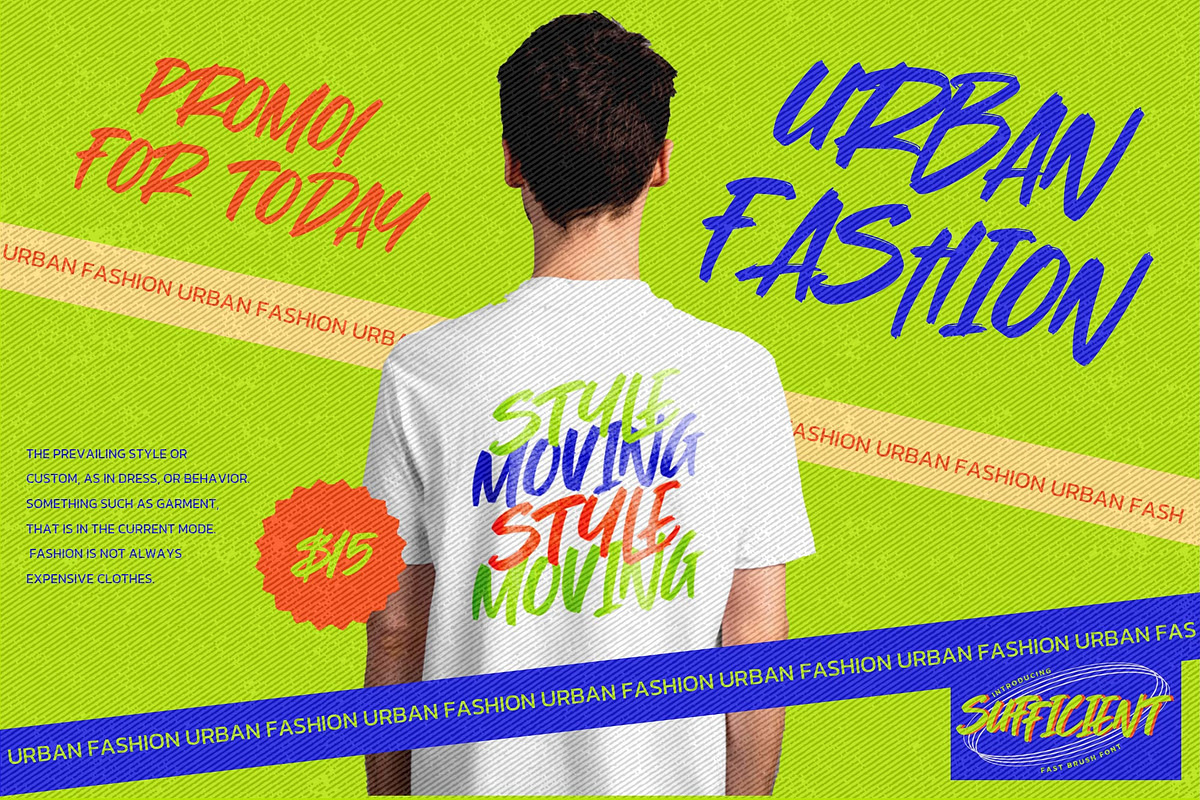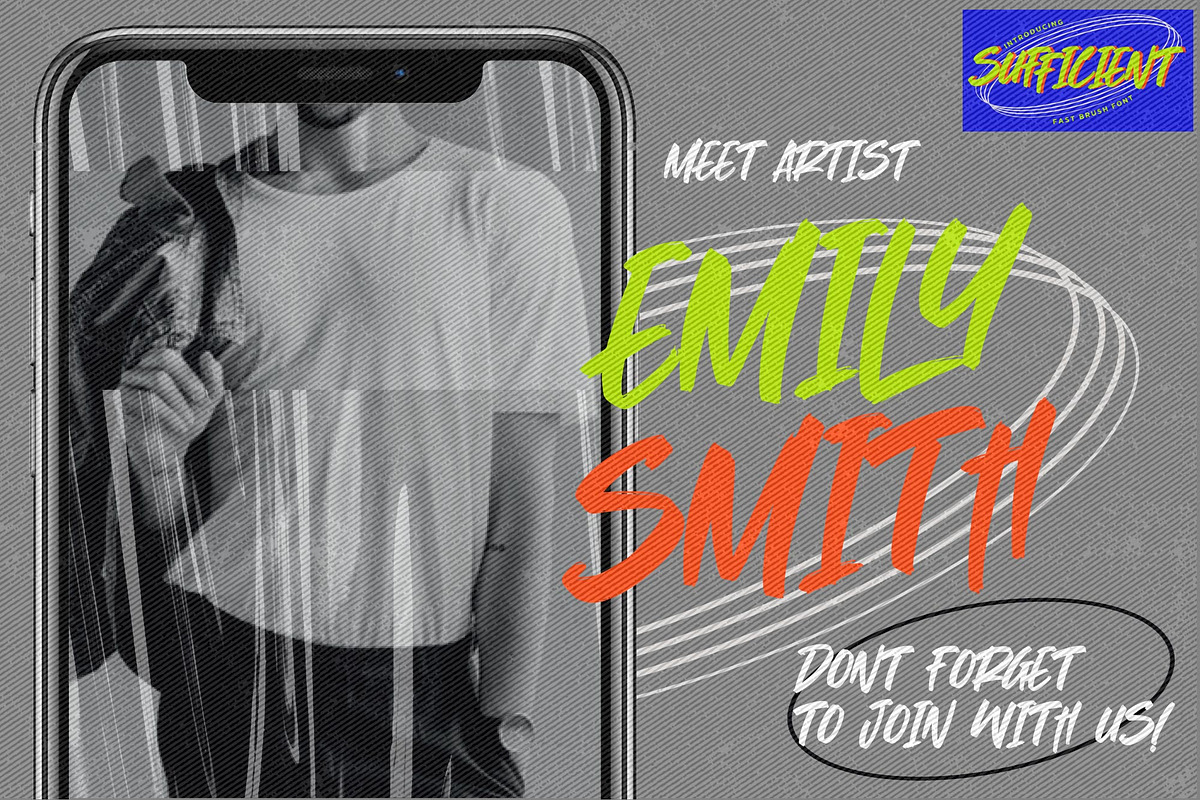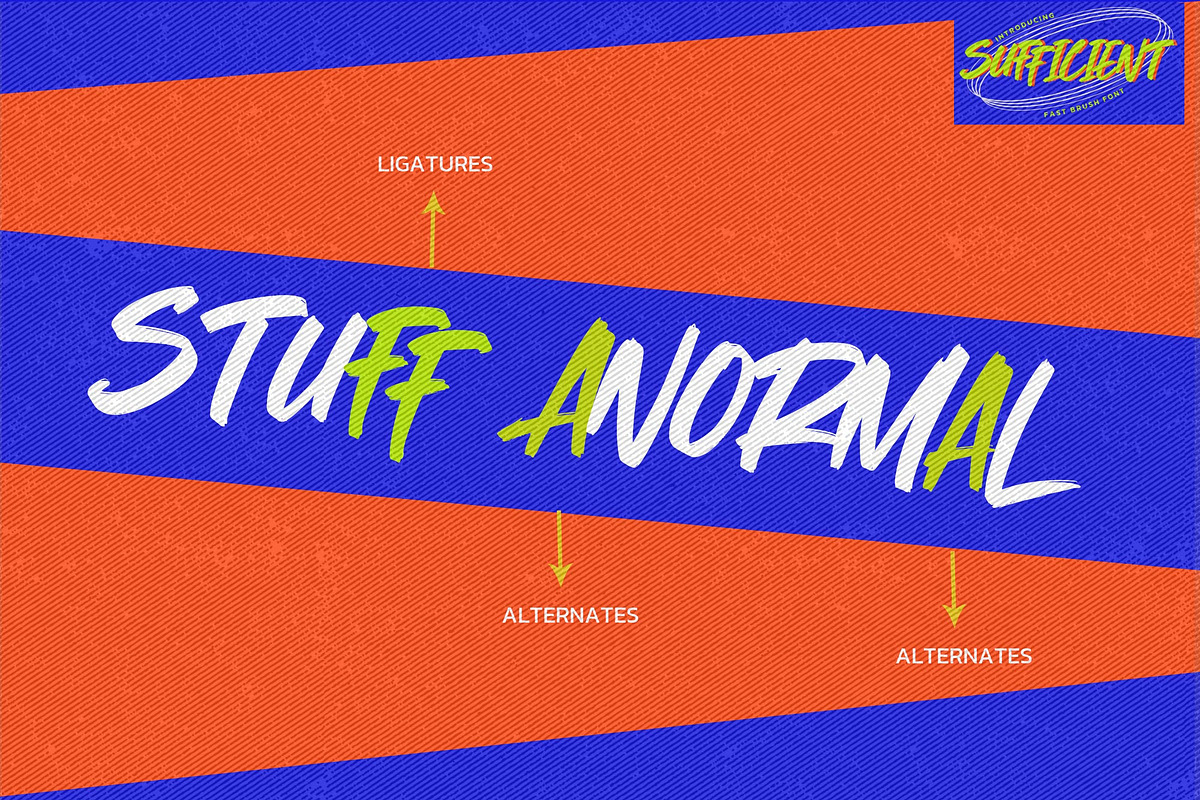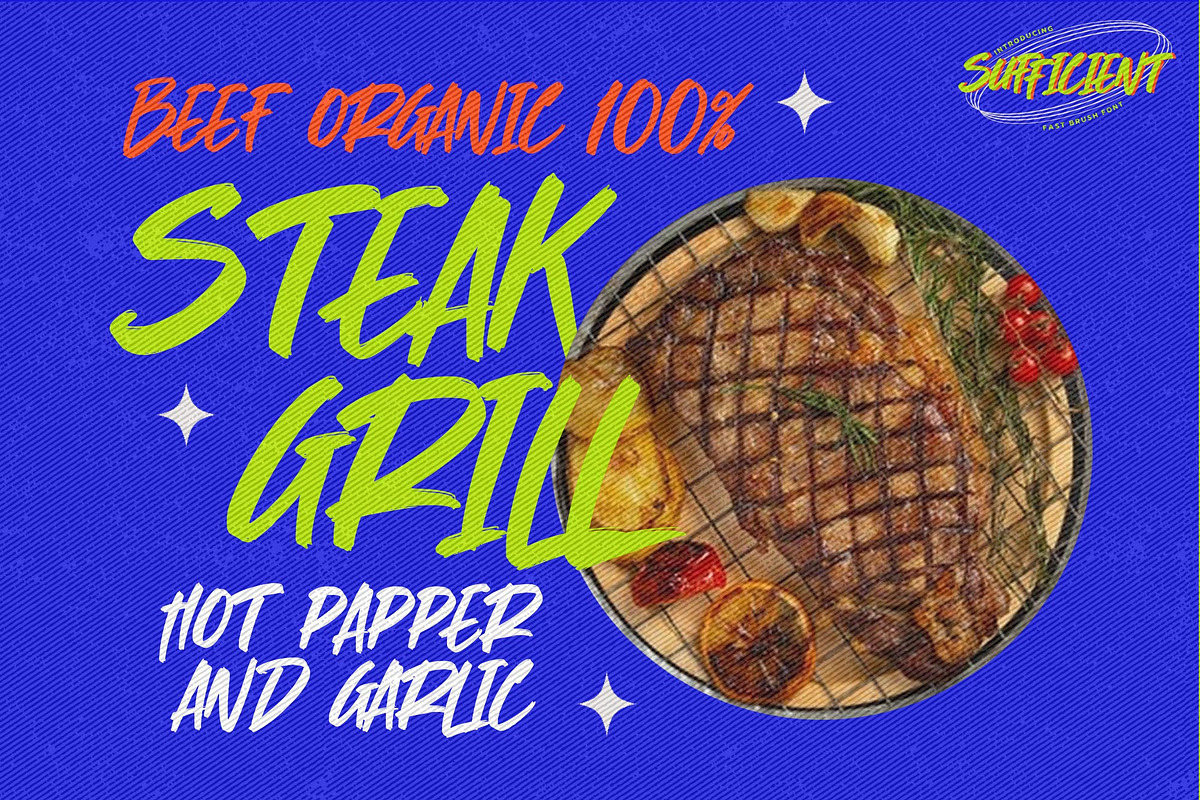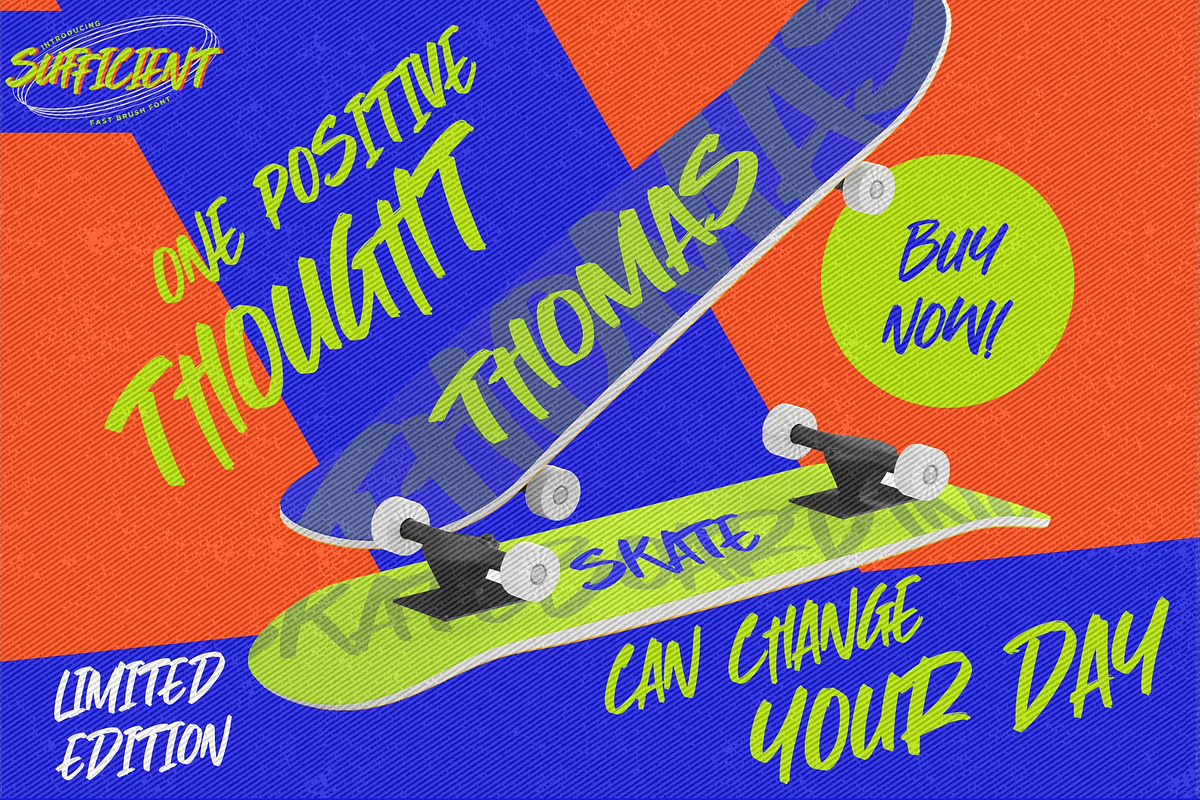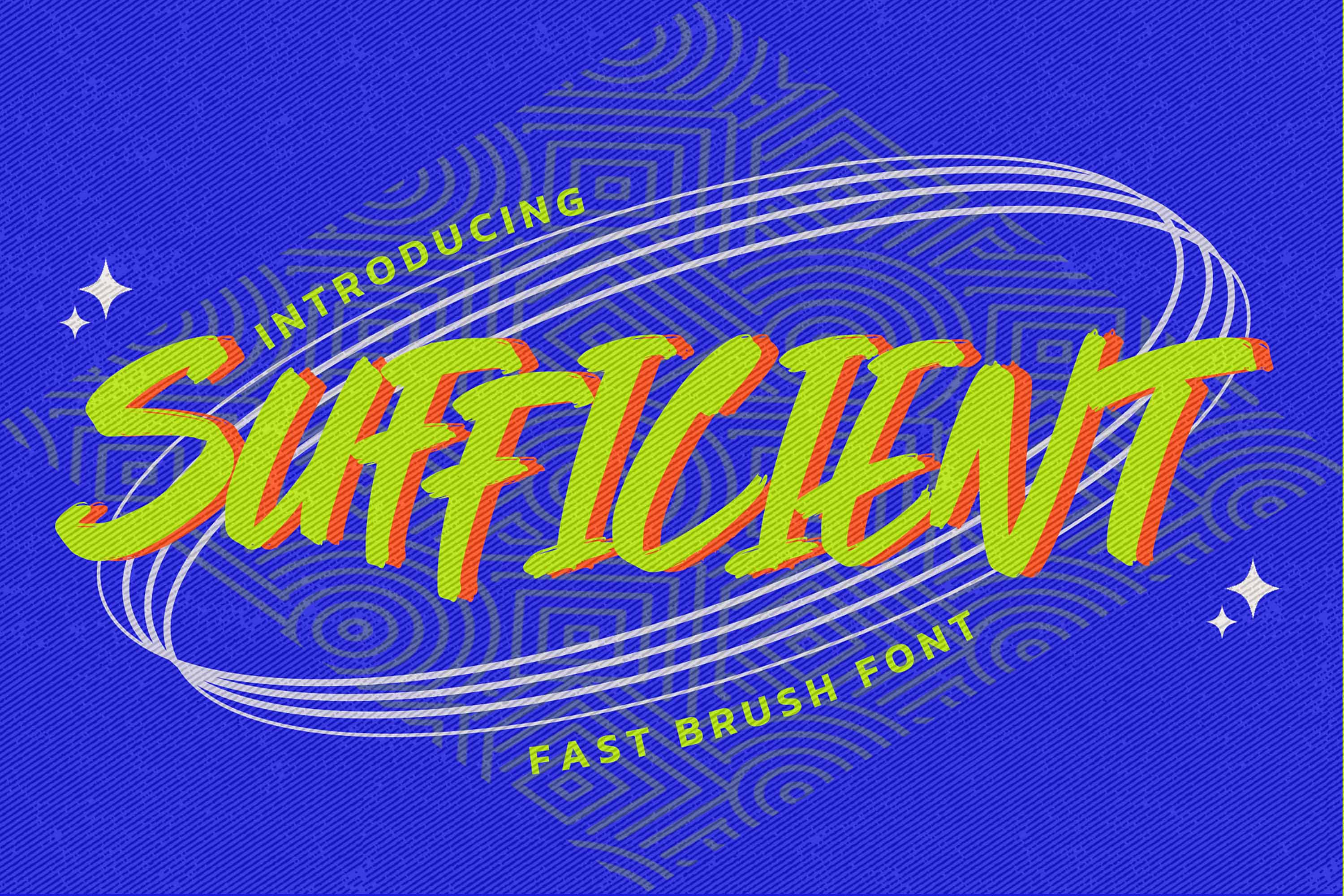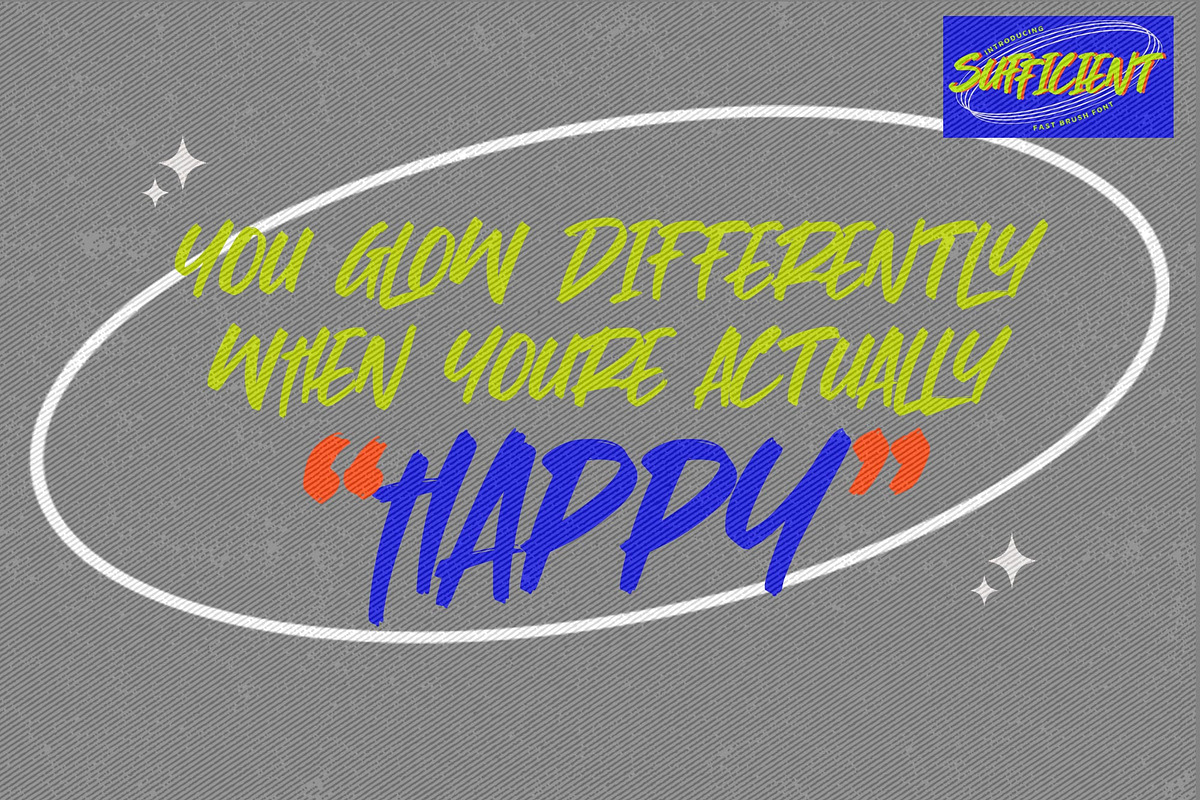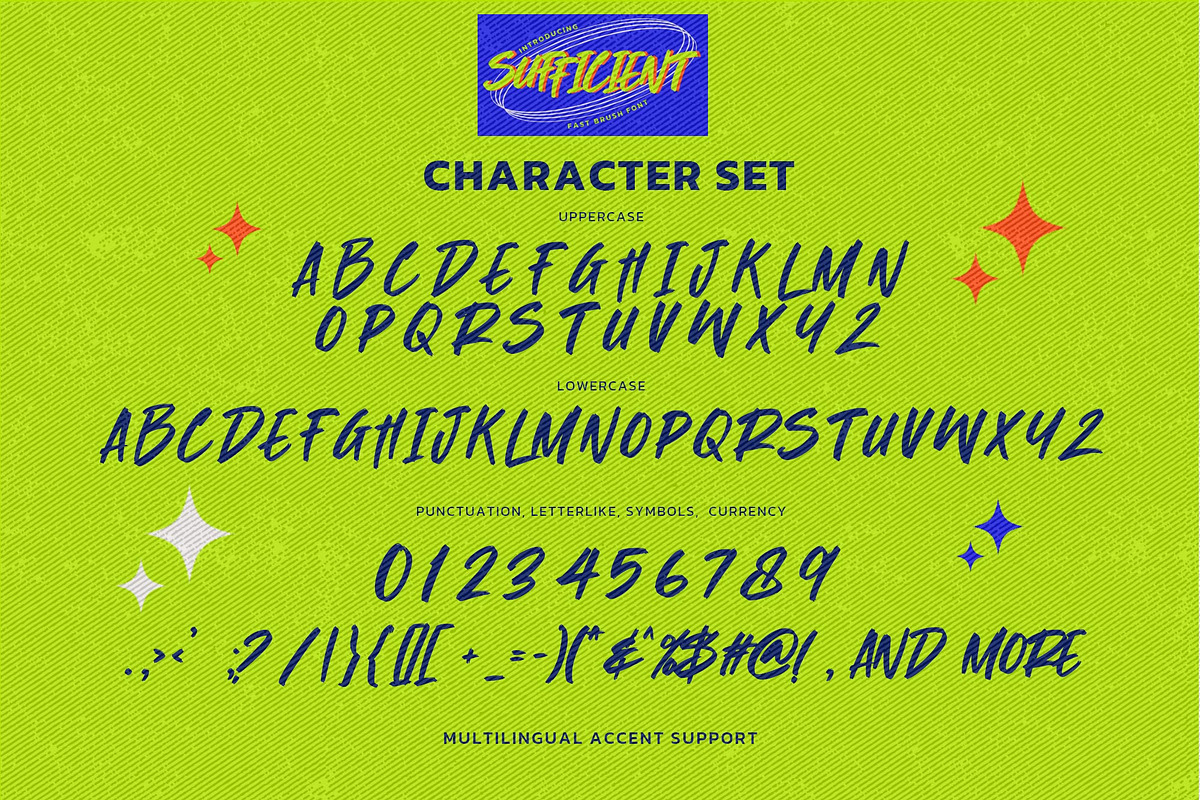
SUFFICIENT - Fast Brush Font
Hello Everyone, introduce our new product SUFFICIENT is Fast Brush Font with a natural feel. This handmade font will make your design has a beautiful natural touch for each details. It is perfect for any design project as Invitation,logo, book cover, craft or any design purposes.
SUFFICIENT Inspired by Food Logo style and combination with Modern Craft style. that will fulfill your design needs for quotes,sporty theme, logotype, wordmark, etc. This has many opentype features and support multi language. This font is PUA encoded which means you can access all of the magical glyphs with ease! It also features a wealth of special features including ligatures glyphs and Alternates glyphs.
- Alternates glyphs
- Ligatures glyphs